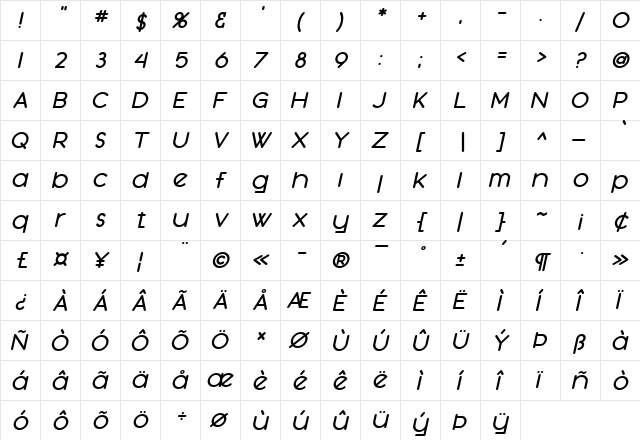
SF Orson Casual Heavy Oblique
Design Context for SF Orson Casual Heavy Typeface
SF Orson Casual Heavy offers clean, dependable letterforms without strong stylistic allegiance, making it a practical choice for designers who need flexibility. The slanted form adds forward momentum and visual energy.
Pro Tip: Try SF Orson Casual Heavy for annotation and caption copy alongside an upright companion — the contrast in angle creates a dynamic but ordered typographic system.